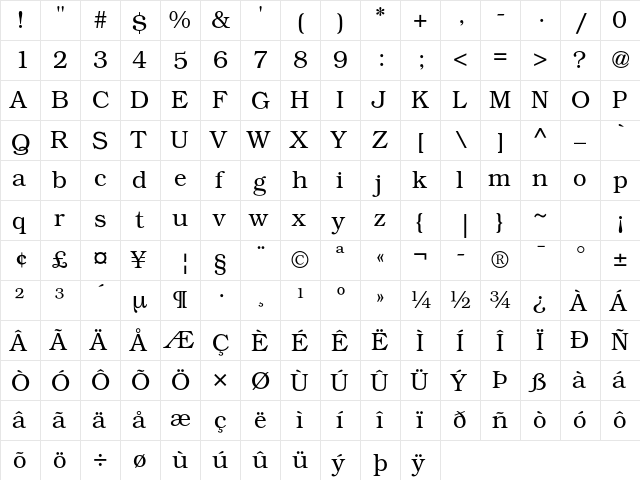
Bookman ITC Std Light
| Designer | Edward Benguiat |
Design Context for Bookman ITC Std Typeface
Bookman ITC Std takes a measured approach to typography — its balanced proportions and neutral character make it a reliable workhorse for both digital and print work. The delicate stroke weight brings airiness and refinement to layouts.